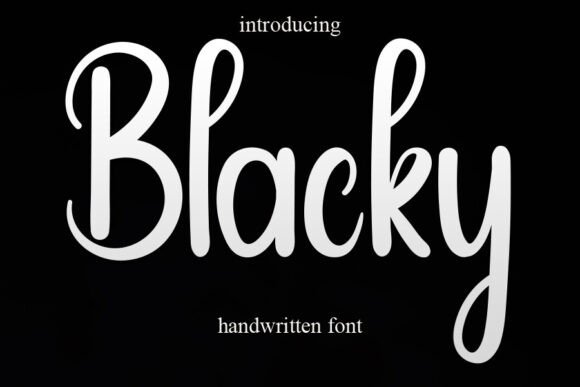
The Simple Charm of Blacky Font: A Designer’s New Best Friend
I’ll never forget the time I was working on a greeting card project for a client, and I just couldn’t find the right font to match the tone and feel of the design. The client wanted something simple, yet personal and heartfelt. I spent hours scouring the internet for the perfect match, but everything seemed either too fancy or too bland. That’s when I stumbled upon Blacky Font, a simple handwritten font that has since become a staple in my design toolkit.
An Honest Review of Blacky Font
So, what makes Blacky Font so special? Let’s dive into the good stuff and, of course, a few quirks I’ve noticed.
What I Love About Blacky Font
- ✨ Simple yet expressive: Blacky Font has a way of conveying emotions without being too over-the-top. It’s perfect for designs that need a touch of personality.
- ✅ Versatile: From greeting cards to headlines, Blacky Font adapts seamlessly to different contexts and design requirements.
- 💡 Easily readable: Despite its handwritten nature, Blacky Font is remarkably legible, even at smaller font sizes.
While Blacky Font is an excellent choice for many projects, there are a few things to keep in mind:
- 🤔 Limited formal applications: Due to its informal, handwritten style, Blacky Font might not be the best fit for very formal or corporate designs.
- ⚠️ Not ideal for body text: While readable, Blacky Font is best used for headings, titles, or short paragraphs. For longer texts, a more traditional font might be more suitable.
The Story Behind Blacky Font
While the origins of Blacky Font might be shrouded in mystery, it’s easy to imagine a designer creating this font out of a desire to craft something simple, yet meaningful. Perhaps they were inspired by handwritten notes from loved ones or the charm of vintage signage. Whatever the inspiration, Blacky Font captures a sense of warmth and sincerity that’s hard to find in more formal typefaces.
Q: How does Blacky Font compare to other handwritten fonts?
A: Blacky Font stands out for its simplicity and readability. While it may share some similarities with other handwritten fonts, its unique charm and versatility set it apart.